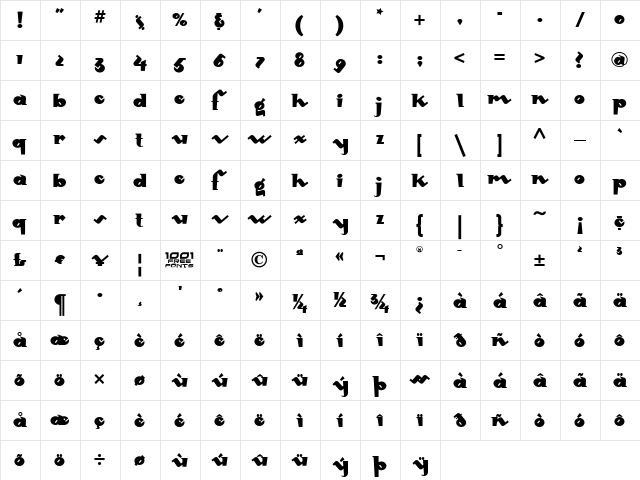
Mondo Redondo NF Regular
Design Context for Mondo Redondo NF Typeface
Mondo Redondo NF is a composed and adaptable typeface that performs quietly and consistently across a wide range of design contexts.